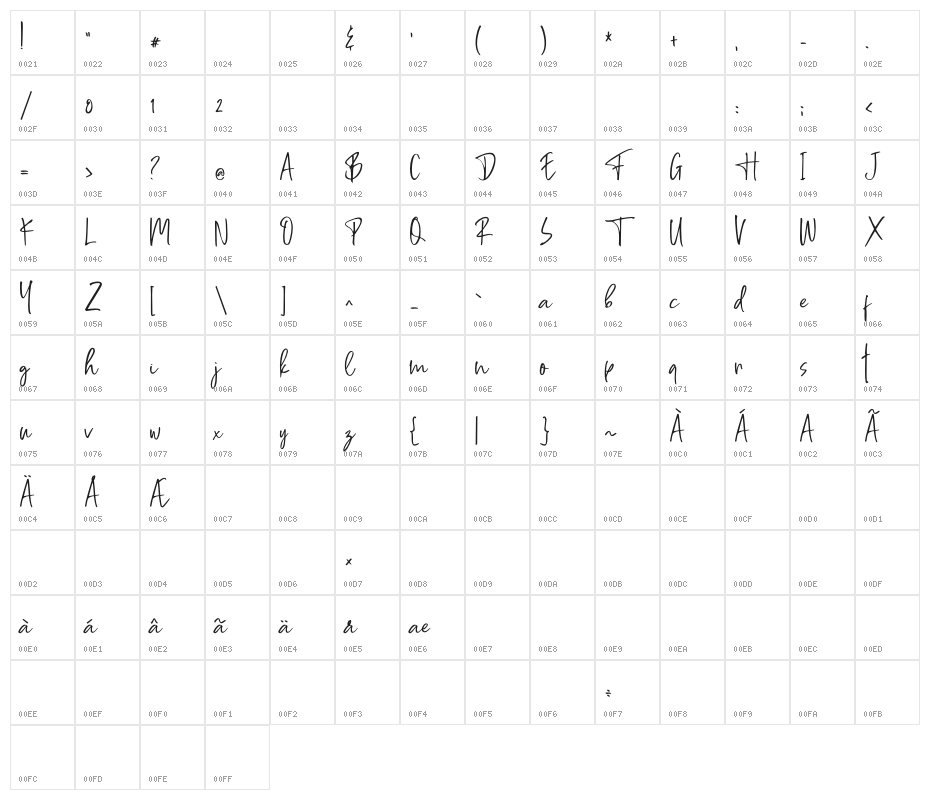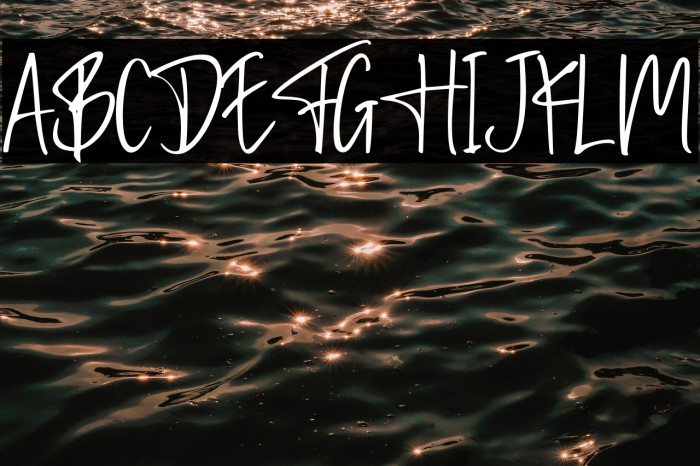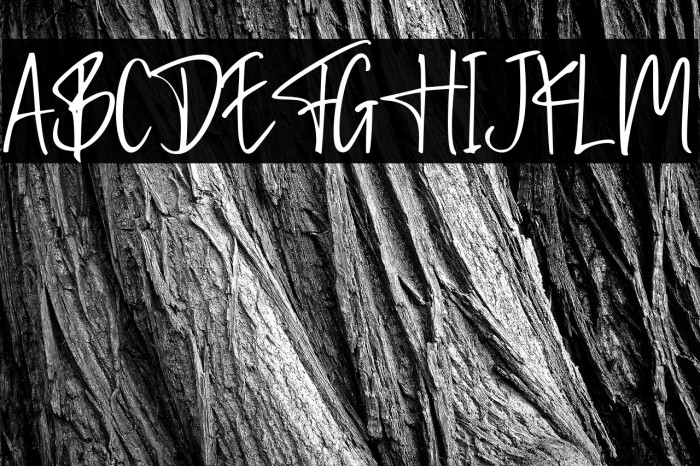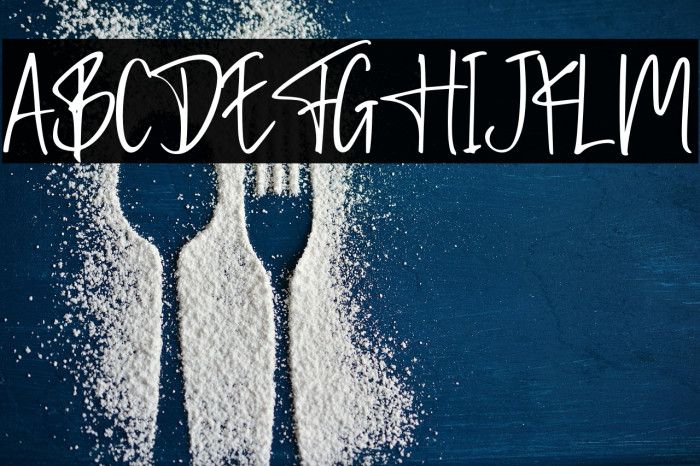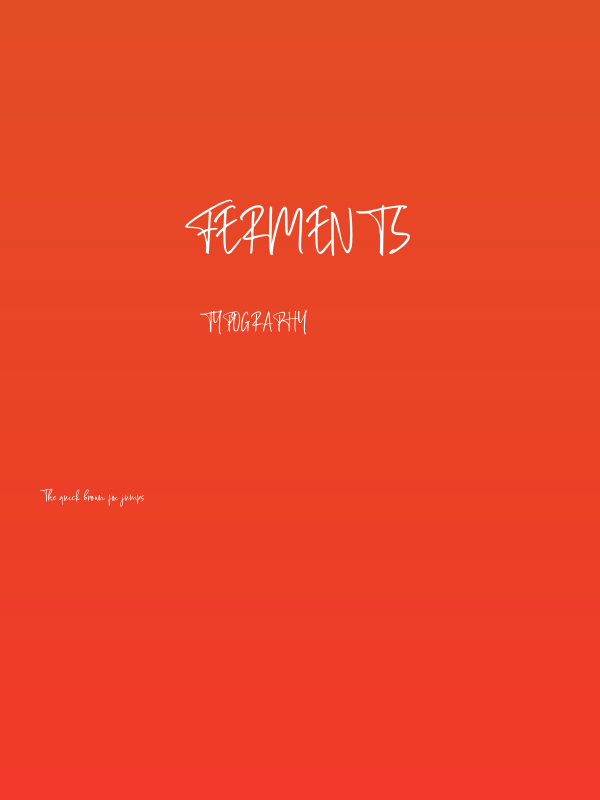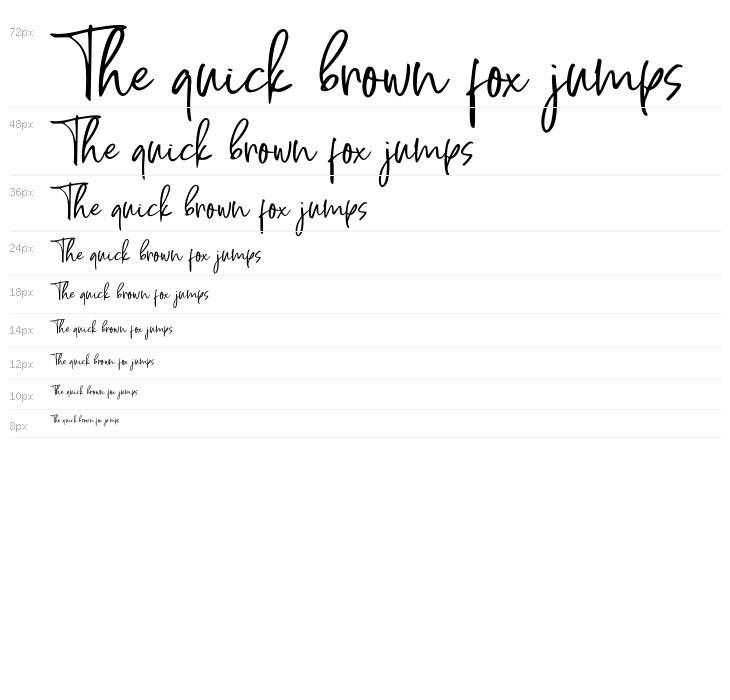
Ferments Font
Ferments Description
This font features a lively and expressive handwritten style, characterized by its fluid and dynamic strokes. The uppercase letters exhibit a playful and slightly chaotic appearance, with varying heights and angles that add a sense of movement. The lowercase letters maintain a more consistent flow, yet retain the energetic feel of the uppercase set. Numbers and special characters follow the same spirited design, making the font versatile for creative projects. The overall impression is one of spontaneity and artistic flair, suitable for conveying a personal and informal tone.
| Proposed Projects | Ideal for creative projects like greeting cards, invitations, personal branding, and artistic posters. |